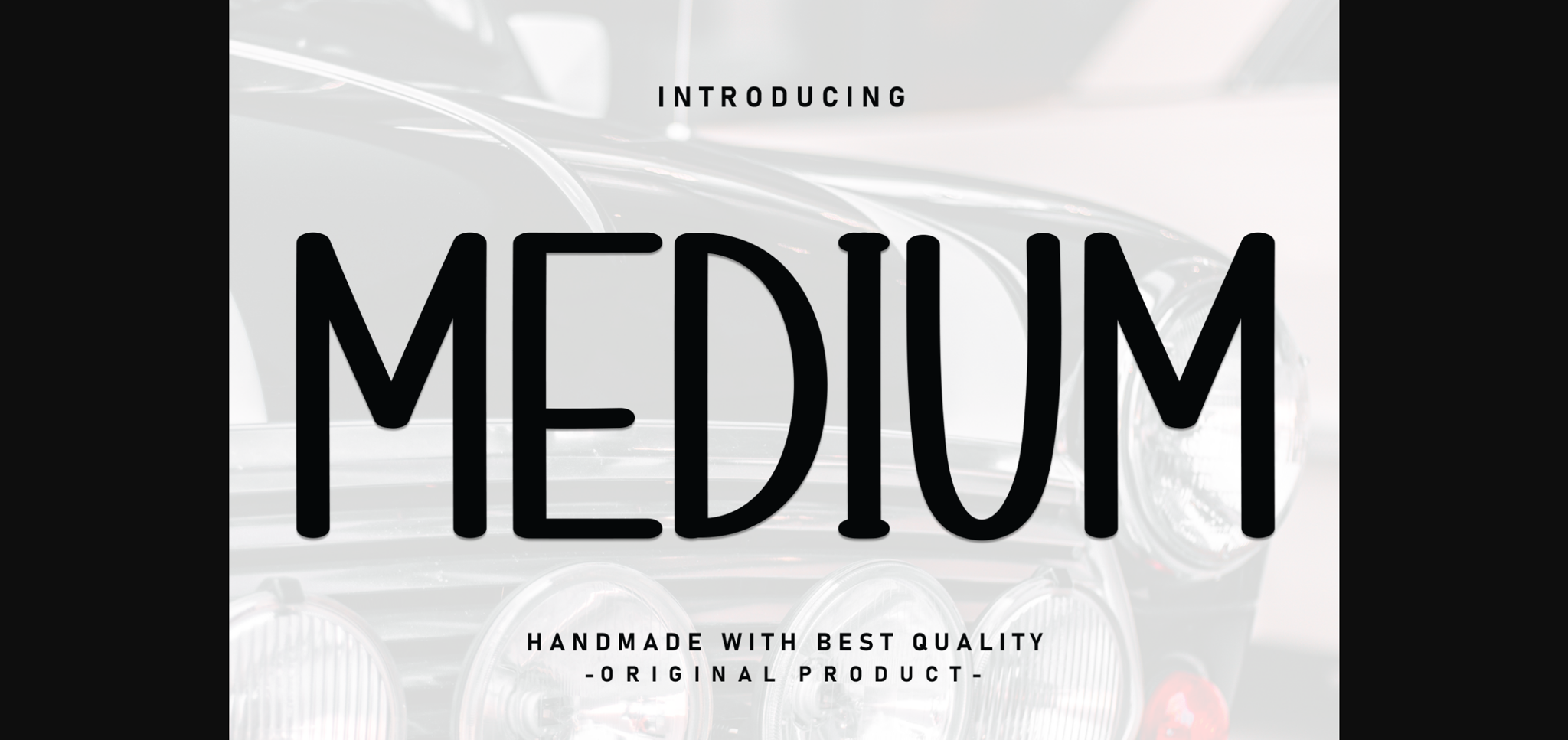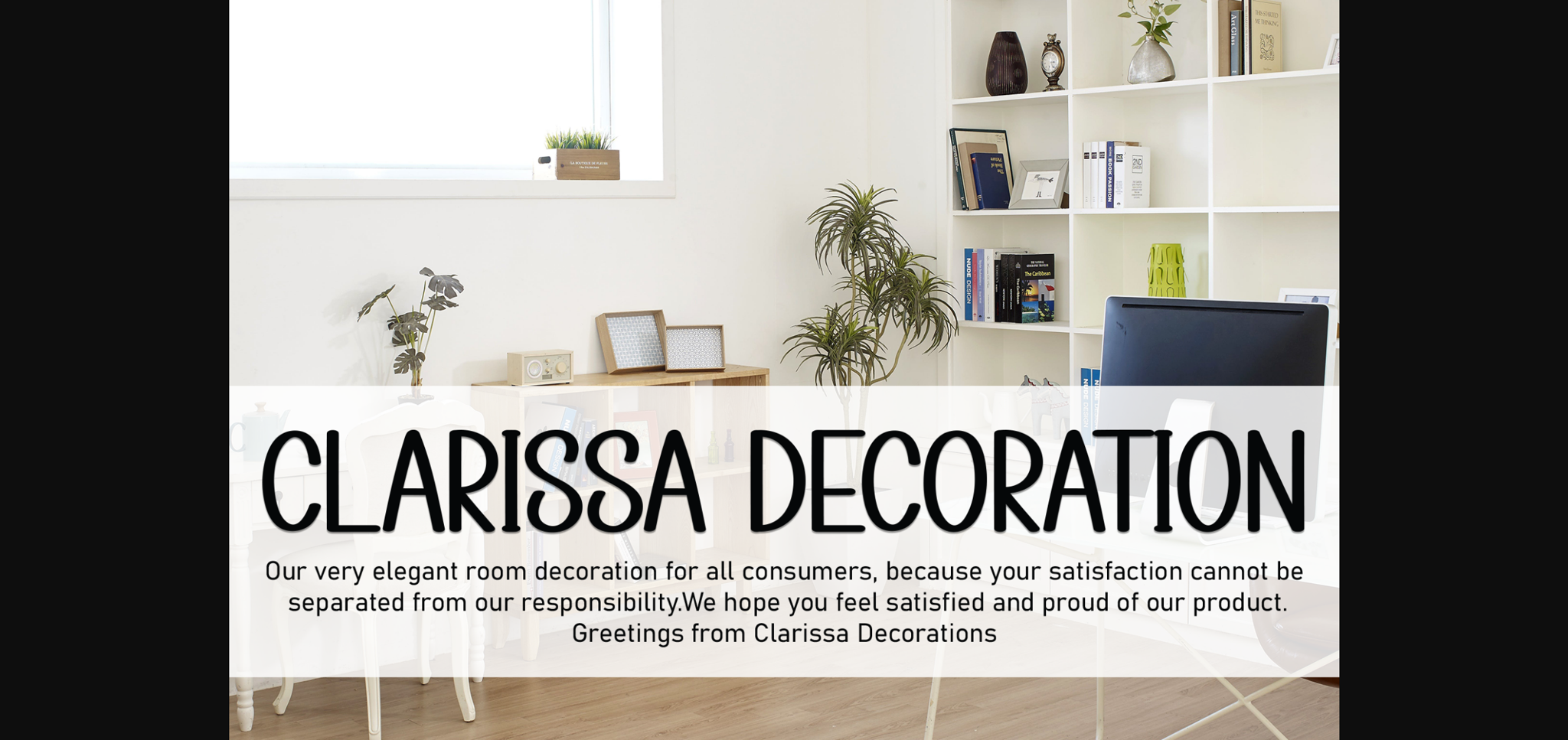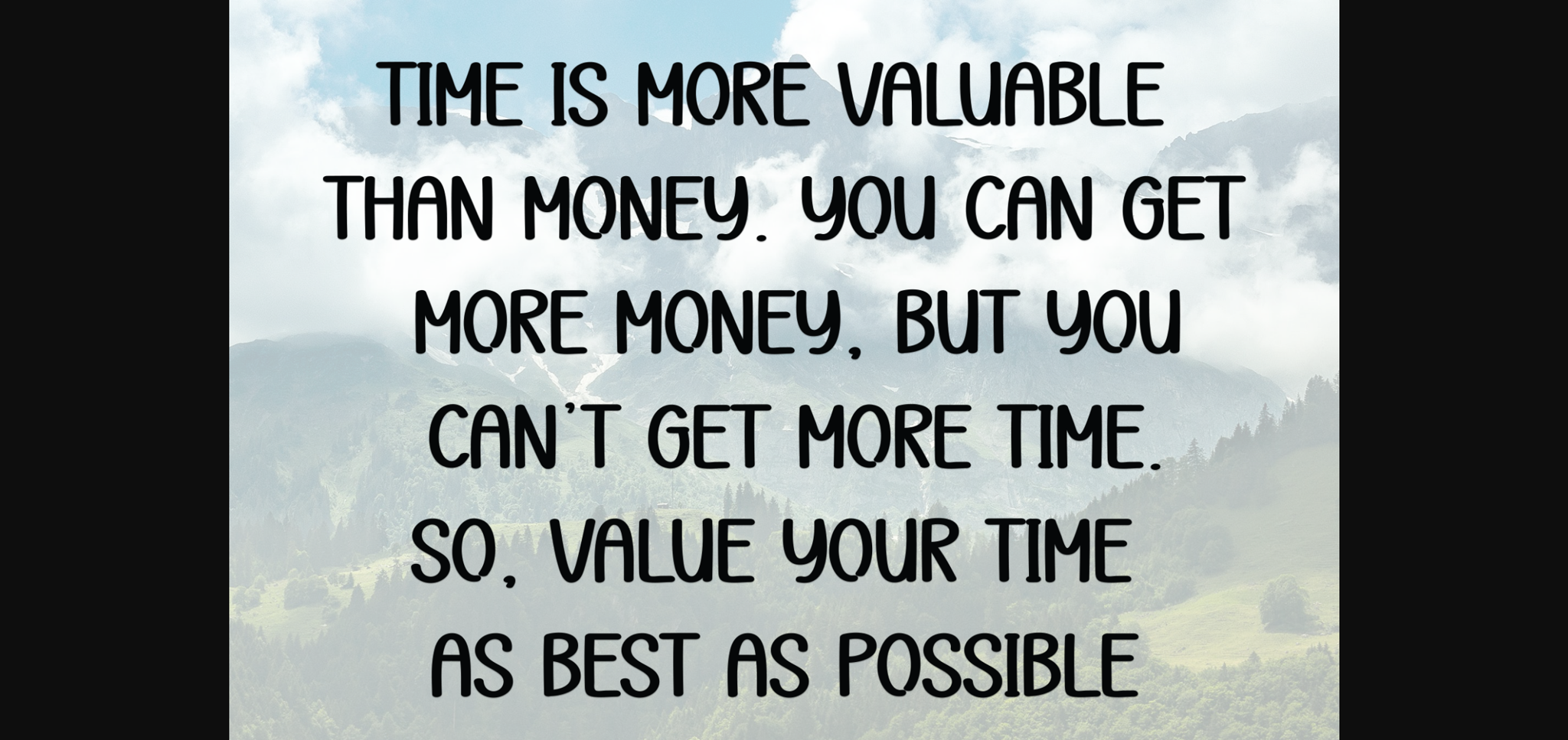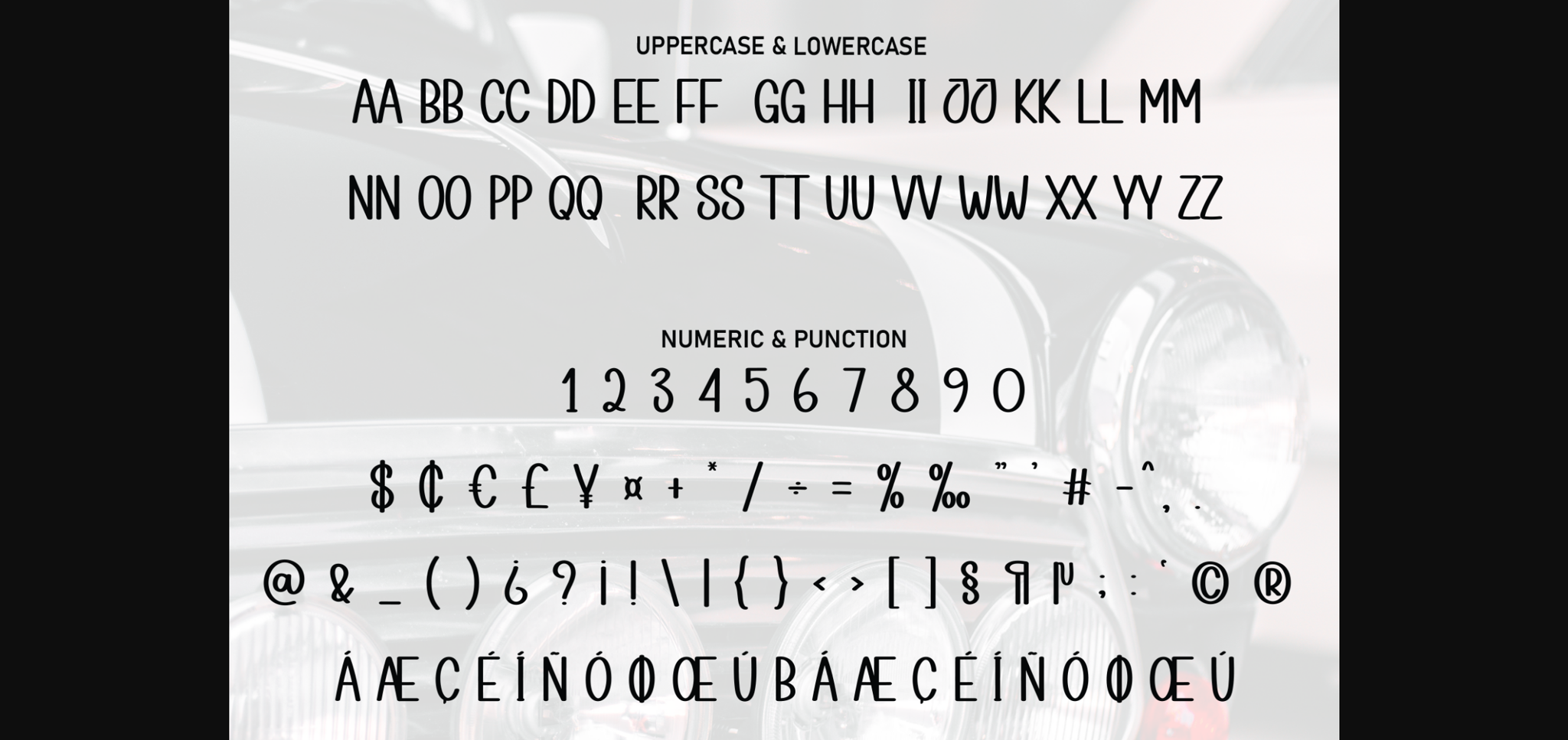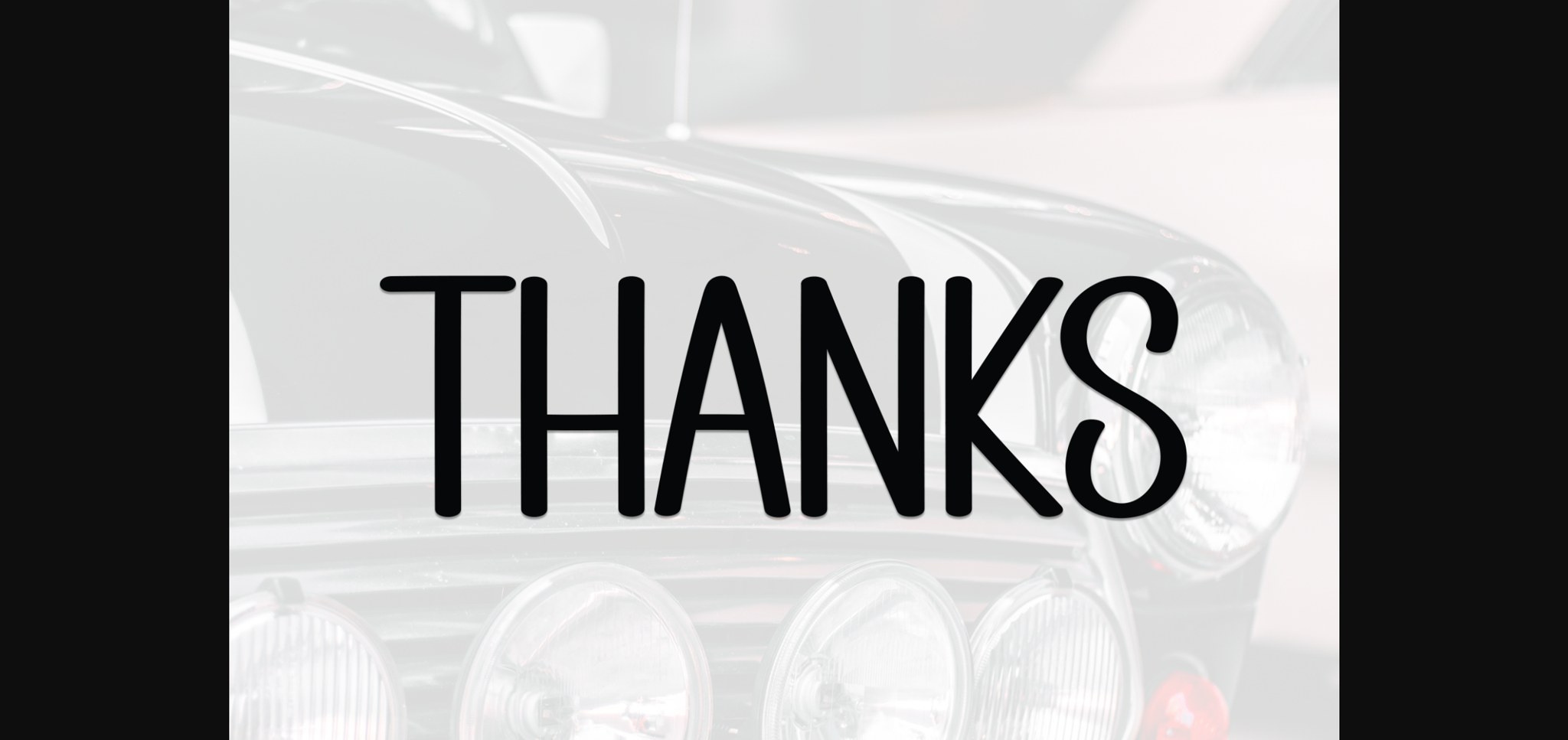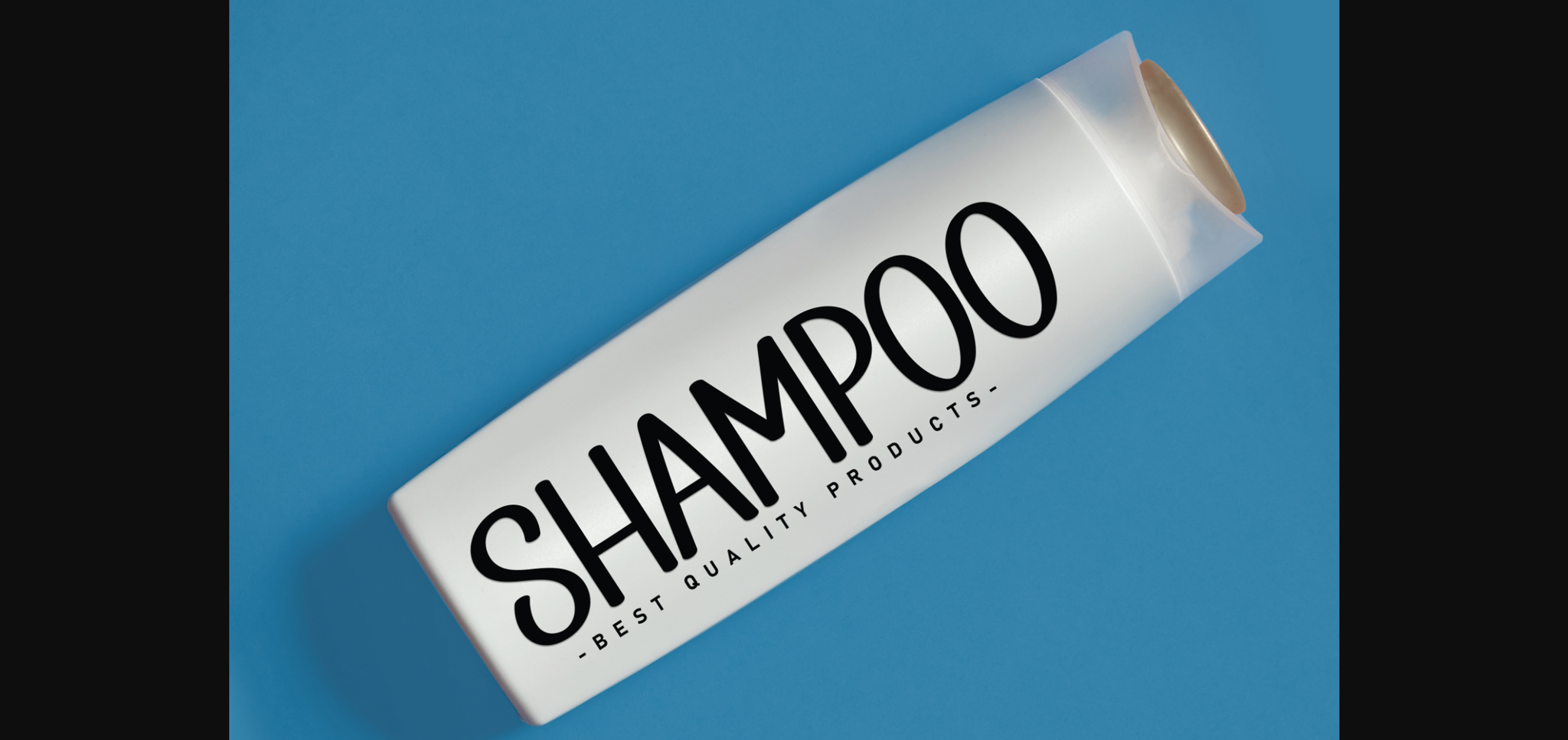
Medium Font
About Medium Font
Medium is a neat and beautiful sans-serif font described by an elegant touch, perfect for your favorite projects. Fall in love with its incredibly distinct and timeless style, and use it to create spectacular designs!